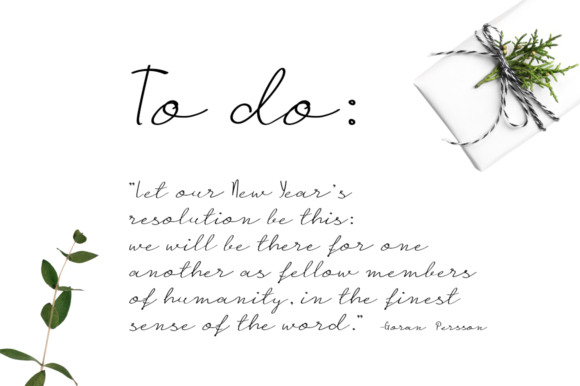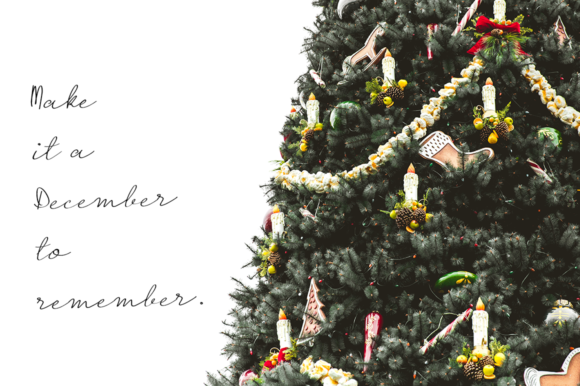
About Under the Mistletoe Font
Introducing “The Under the Mistletoe,” a lovely script font that beautifully simulates natural handwriting, adding a warm and personal touch to your designs. This font is more than just a typeface; it’s a design asset crafted with a charming and genuine feel, making it perfect for a variety of projects that demand a handwritten script with a festive and joyful vibe.
“The Under the Mistletoe” stands out with its lovely script, capturing the essence of natural handwriting and bringing warmth to your text. Whether you’re working on logos, signatures, handwritten quotes, badges, labels, packaging design, social media headers, greeting cards, or any project that requires a touch of genuine charm, this font delivers with its distinctive and heartfelt character.
Its natural handwriting simulation ensures that your text exudes authenticity and warmth, making it perfect for festive and joyful occasions. Logos designed with this font carry a genuine and memorable brand identity. Greeting cards, labels, packaging, and other designs crafted with “The Under the Mistletoe” showcase a festive and charming vibe, making them visually appealing and versatile.
The versatility of “The Under the Mistletoe” makes it a great choice for a variety of creative applications, providing a script font that adds a touch of warmth to any design context, especially during the holiday season.
In summary, “The Under the Mistletoe” is more than just a font; it’s a design companion that brings a lovely handwritten script with natural handwriting simulation to your festive projects. Embrace its charm for logos, greeting cards, packaging, and more, and let “The Under the Mistletoe” enhance your designs with a genuine and festive character.